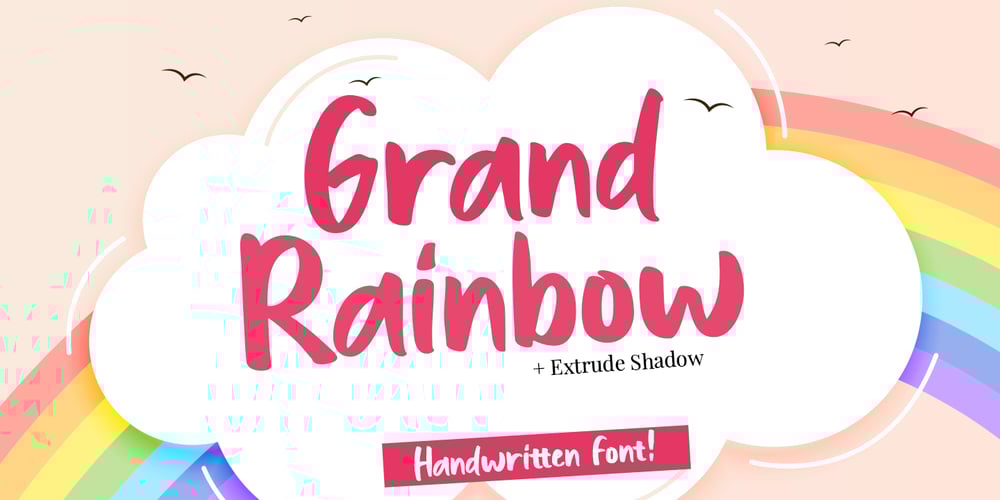
Grand Rainbow Script
Grand Rainbow Script font
Grand Rainbow Script Font Family was designed by Putra Khan and published by Mindtype Co.. Grand Rainbow Script contains 3 styles and family package options. Grand Rainbow Script a beautiful modern calligraphy font with Extrude Shadow Style. Comes with 2 layered font handwritten, sophisticated flows. Grand Rainbow Script offers beautiful typographic harmony for a diversity of design projects, signature, stationery, logo, typography quotes, branding, wedding designs, social media posts, advertisements & product designs.